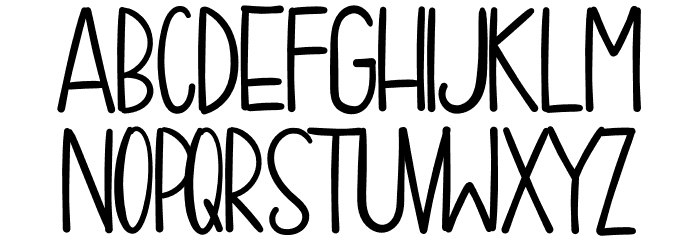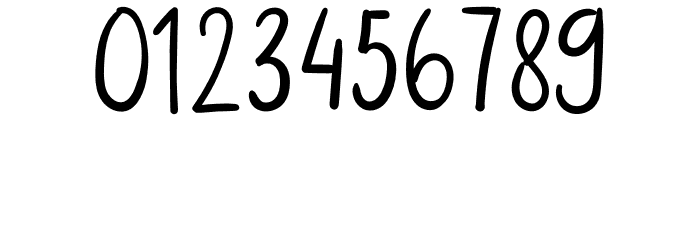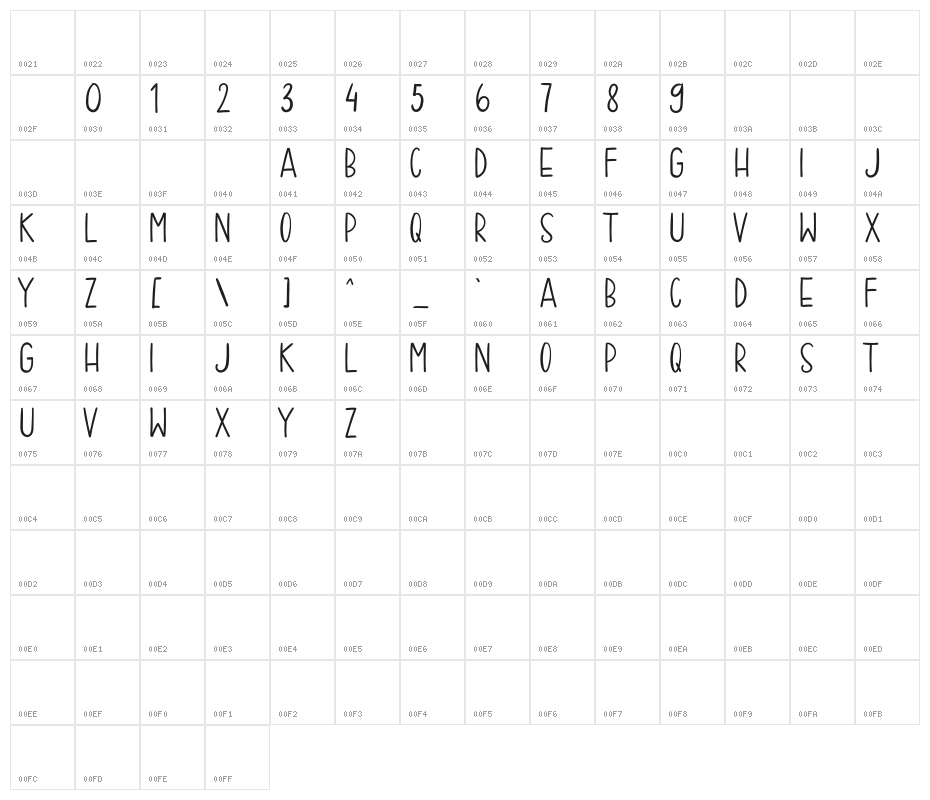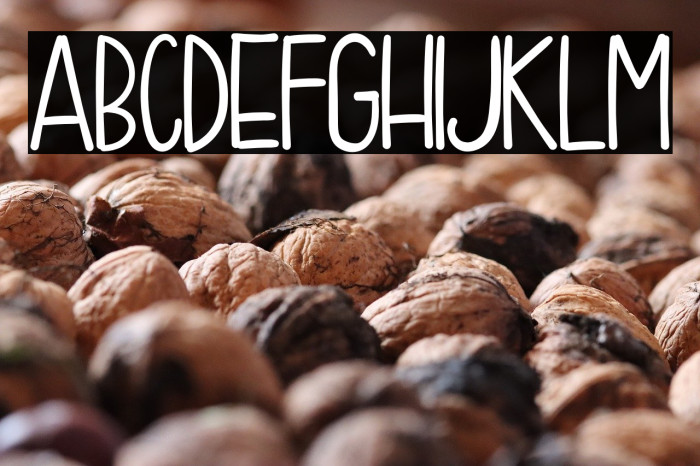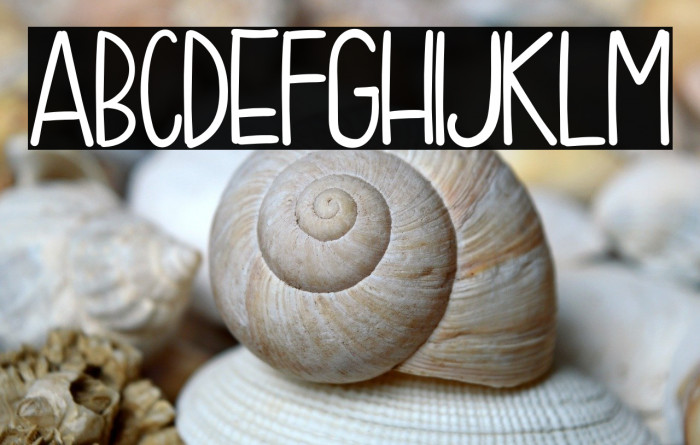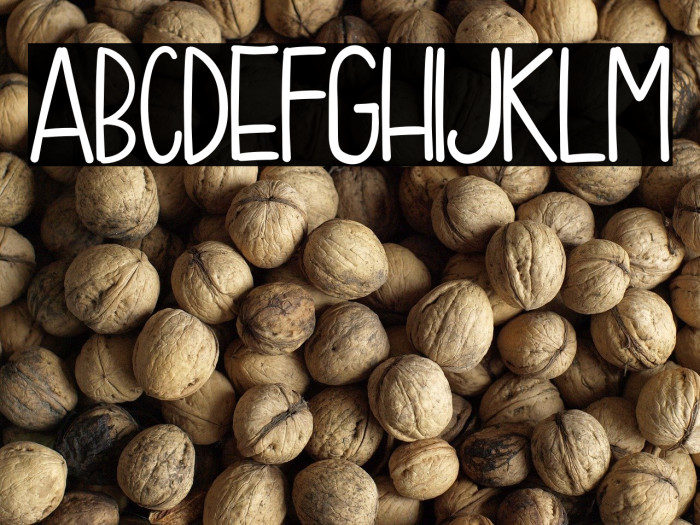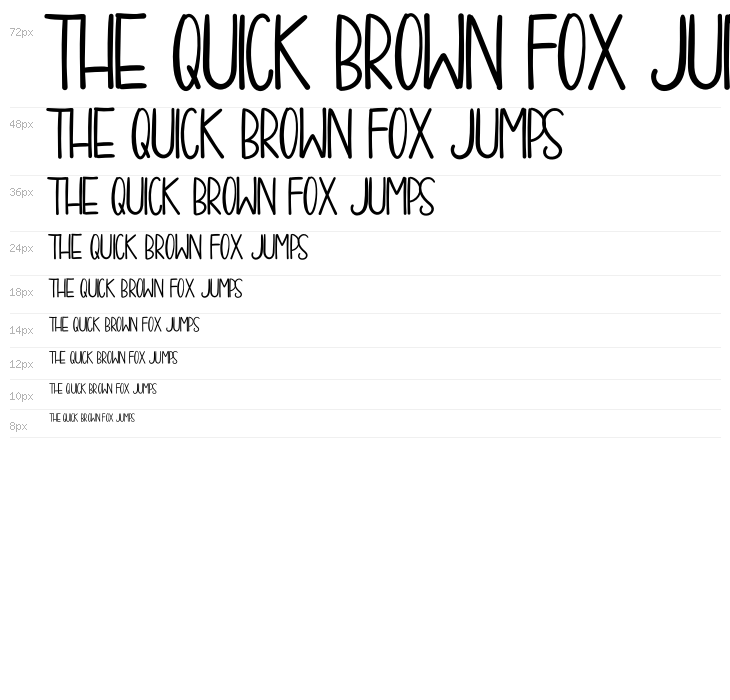
Summer Like Sans Font
This font features a playful and casual style, reminiscent of handwritten text with a modern twist. The letters are tall and slightly narrow, with rounded edges that give a friendly and approachable feel. The strokes are consistent in width, providing a clean and uniform appearance. The characters are well-spaced, ensuring readability while maintaining a relaxed vibe. This font is versatile, suitable for projects that require a personal touch without sacrificing clarity. Its simplicity and charm make it ideal for a variety of creative applications.
A playful, handwritten-style font with rounded edges and consistent strokes.
- Font: Summer Like Sans
- Proposed Projects: Ideal for greeting cards, children's books, casual branding, and social media graphics.
- Category: Handwritten
- Overall Style: Casual
- Use Case: Headlines, Logos, Social Media